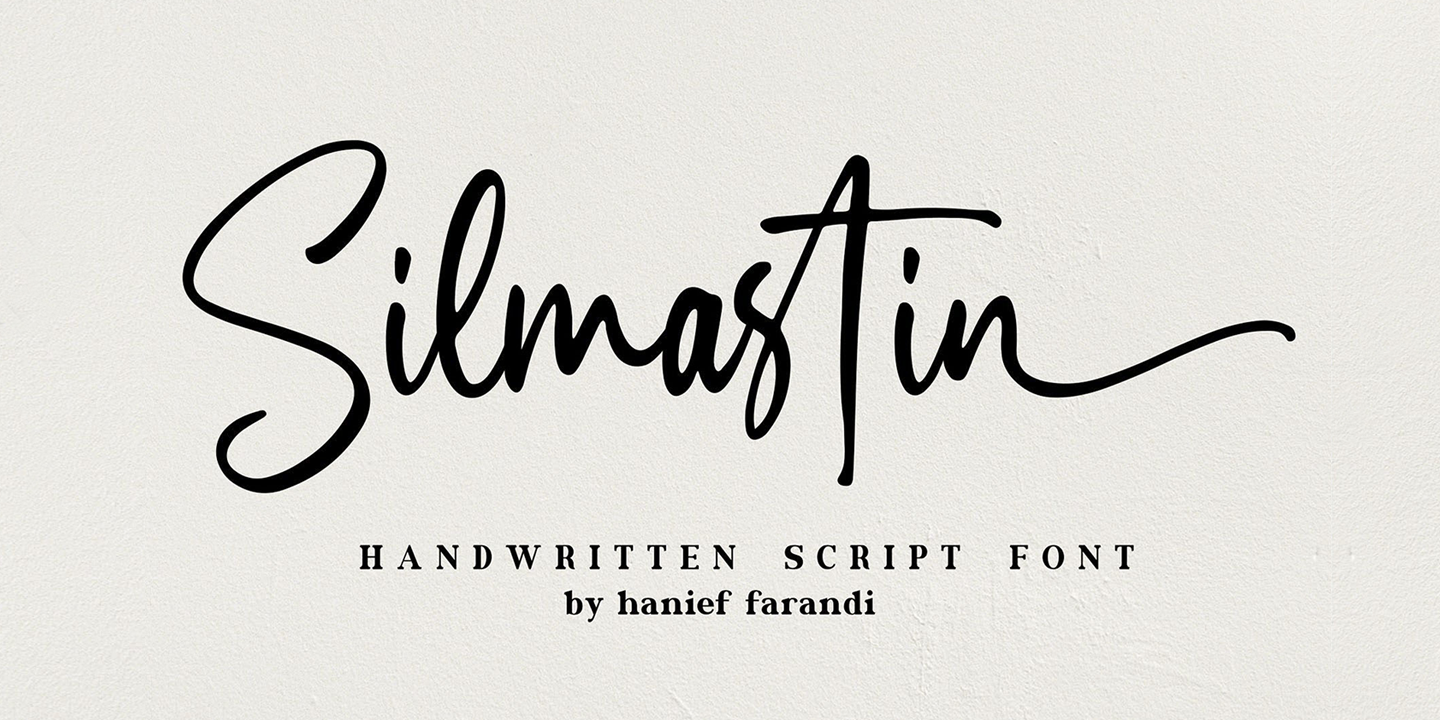
Silmastin Font is ideal for elegant jewelry branding, sophisticated fashion labels, luxury cosmetics packaging, refined wedding invitations, graceful ballet programs, delicate perfume bottles, artistic calligraphy studios, premium spa materials, silky textile companies, ethereal beauty brands, elegant portrait studios, and sophisticated feminine communications. This graceful typeface brings silken elegance to projects requiring refined sophistication and delicate charm.
What makes Silmastin Font so exciting is its exquisite ability to capture the smooth elegance and lustrous beauty of fine silk through delicately crafted letterforms that seem to flow with the graceful drape and shimmering quality of luxurious fabric. The font features elegantly refined characters with silky curves and sophisticated proportions that mirror the smooth texture and elegant movement of premium silk materials. Its refined character conveys luxury and grace while maintaining excellent readability, making it perfect for brands seeking to communicate elegance, sophistication, and the timeless beauty of refined femininity with authentic silken sophistication.
The Silmastin Font family includes multiple elegant weights and silk-inspired variations that showcase its graceful character while providing comprehensive design flexibility for various luxury and feminine applications. Each variant maintains the original's silken elegance while offering extensive options for creating sophisticated typographic compositions that celebrate refinement and delicate beauty.
Whether you're developing luxury brand identities, creating elegant marketing materials, or designing sophisticated communications, Silmastin Font Free Download offers the perfect combination of silken authenticity and contemporary functionality. This exceptional typeface brings genuine refined elegance to design projects, making it an indispensable choice for designers seeking typography that effectively communicates luxury, grace, and the smooth sophistication of silken beauty with